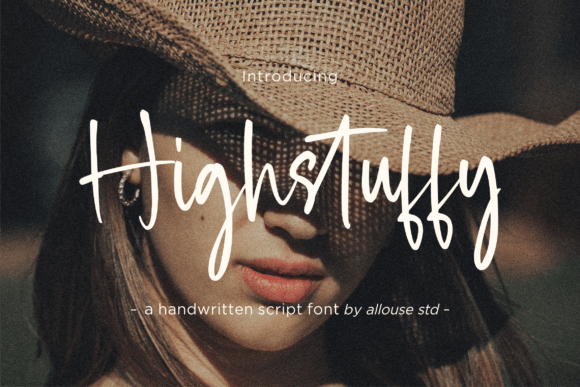
Introducing Highstuffy, the handwritten script font that will add a touch of elegance and sophistication to your creative projects. Crafted with meticulous attention to detail by the talented team at allouse.studio, Highstuffy exudes a timeless charm that's perfect for a wide range of design applications.
With its beautiful flowing lines and graceful curves, Highstuffy is the ideal font for product packaging, branding projects, magazine layouts, social media graphics, wedding invitations, and any other project where you want to make a lasting impression. Its versatility extends to both print and digital media, making it a must-have for designers and creatives of all levels.
But what truly sets Highstuffy apart is its ability to evoke emotion and create a connection with your audience. Its whimsical and charming style has a way of capturing hearts and leaving a lasting impression. Whether you're using it for a personal project or a commercial venture, Highstuffy is sure to leave a lasting impact.